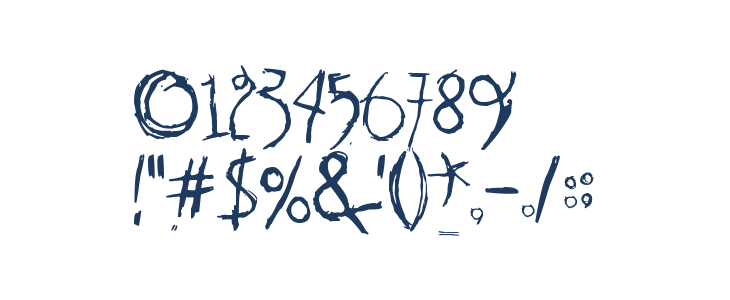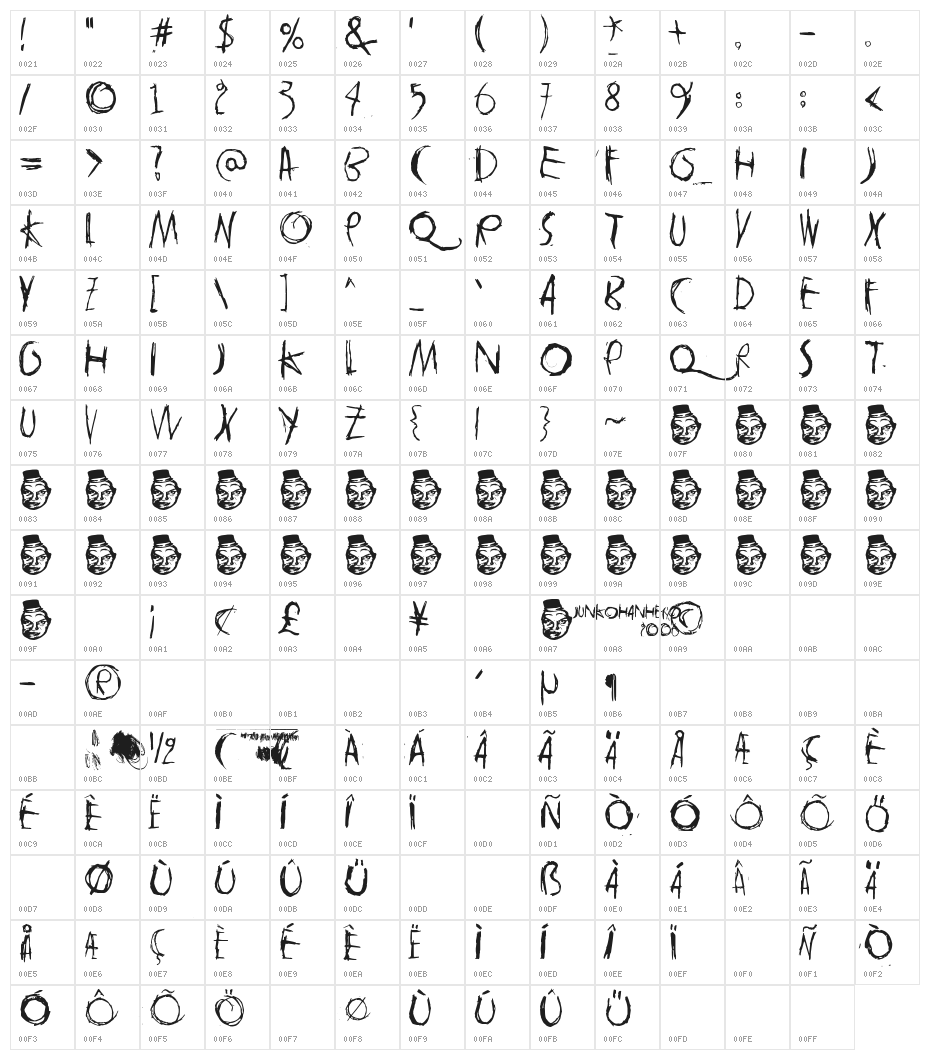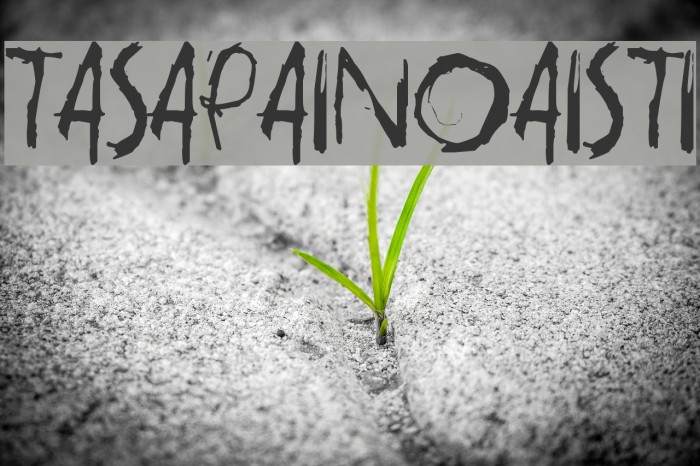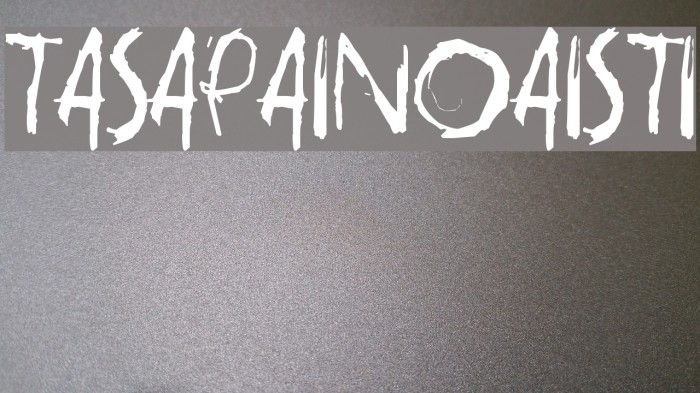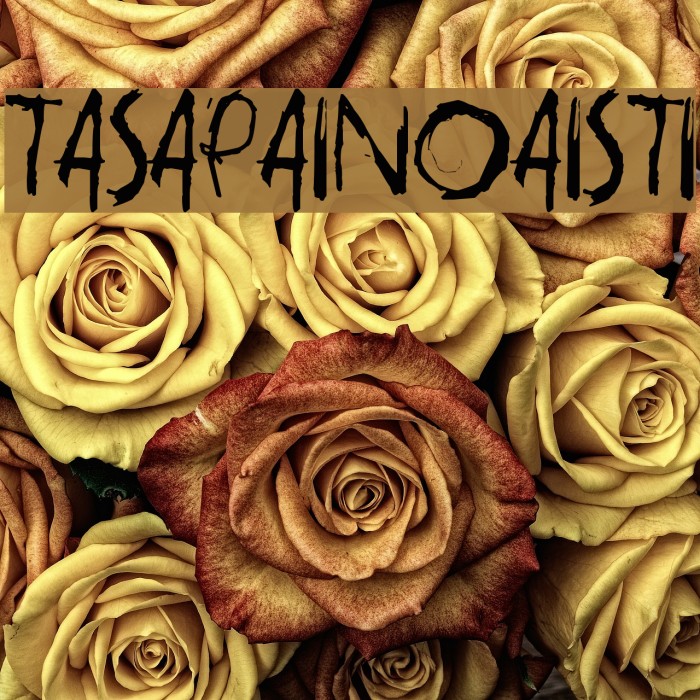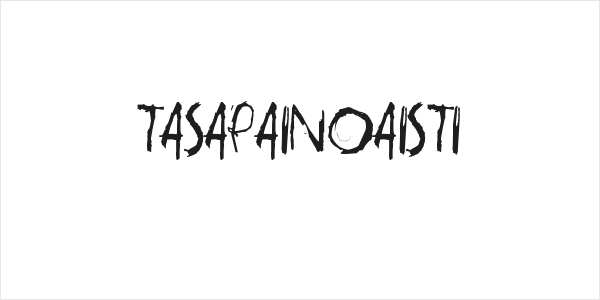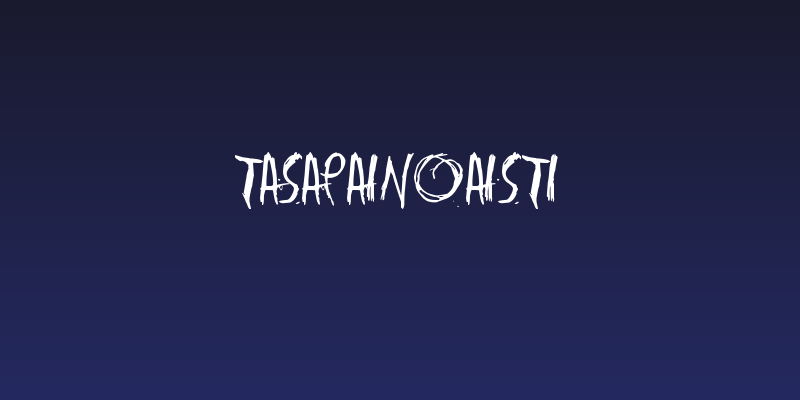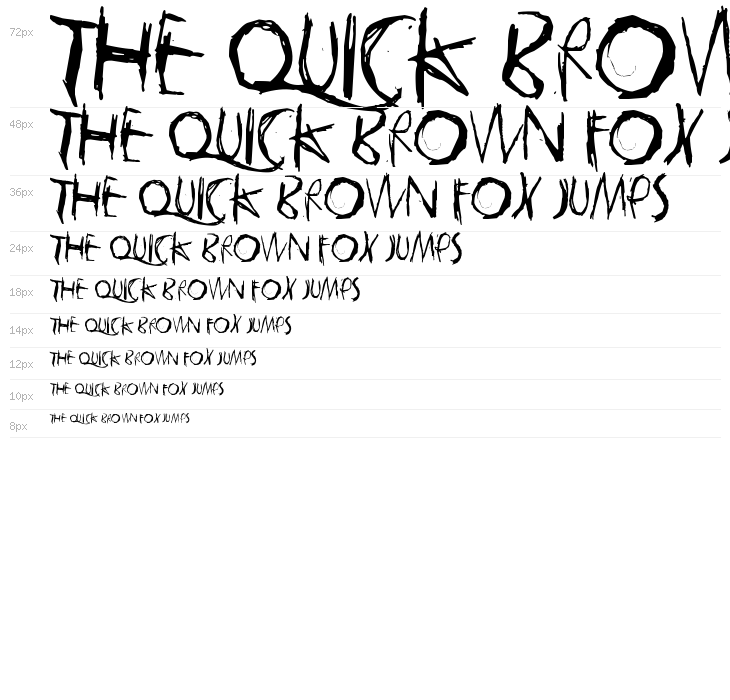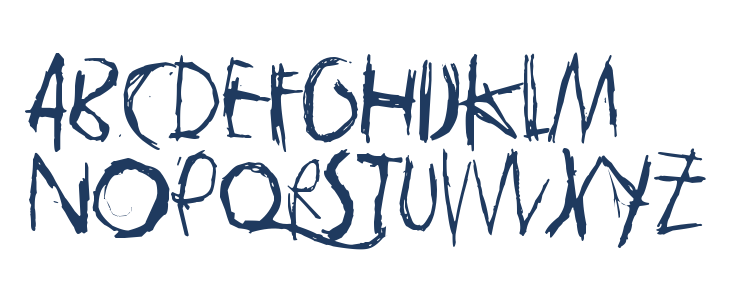
tasapainoaisti Font
tasapainoaisti Description
This font exudes a raw, edgy aesthetic with its jagged, hand-drawn appearance. The characters are irregular and dynamic, giving off a sense of movement and energy. Each letter is uniquely crafted, with varying line thicknesses that create a sense of spontaneity and artistic flair. The uppercase and lowercase letters maintain a consistent style, while the numbers and special characters add to the overall chaotic yet cohesive look. This font is perfect for projects that require a bold, unconventional style, such as album covers, posters, or any design that aims to stand out with a rebellious edge.
Proposed ProjectsAlbum covers, posters, rebellious-themed designs, artistic projects.